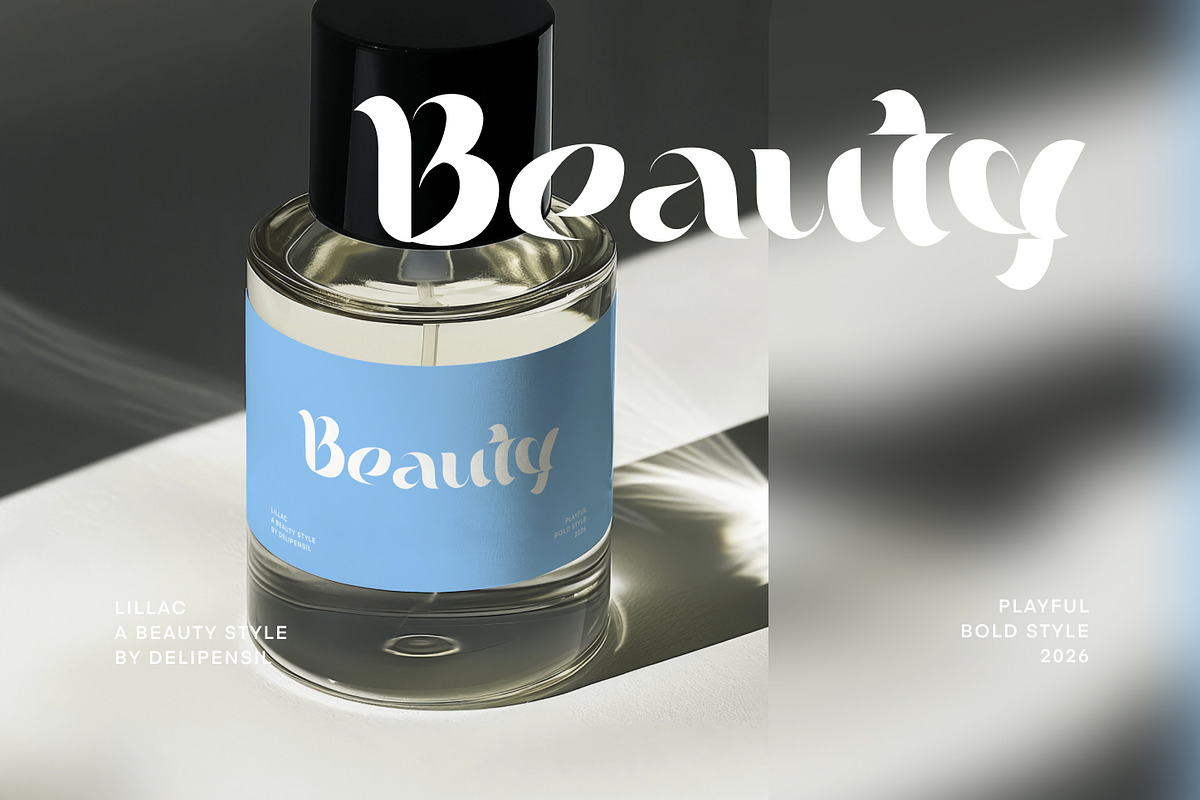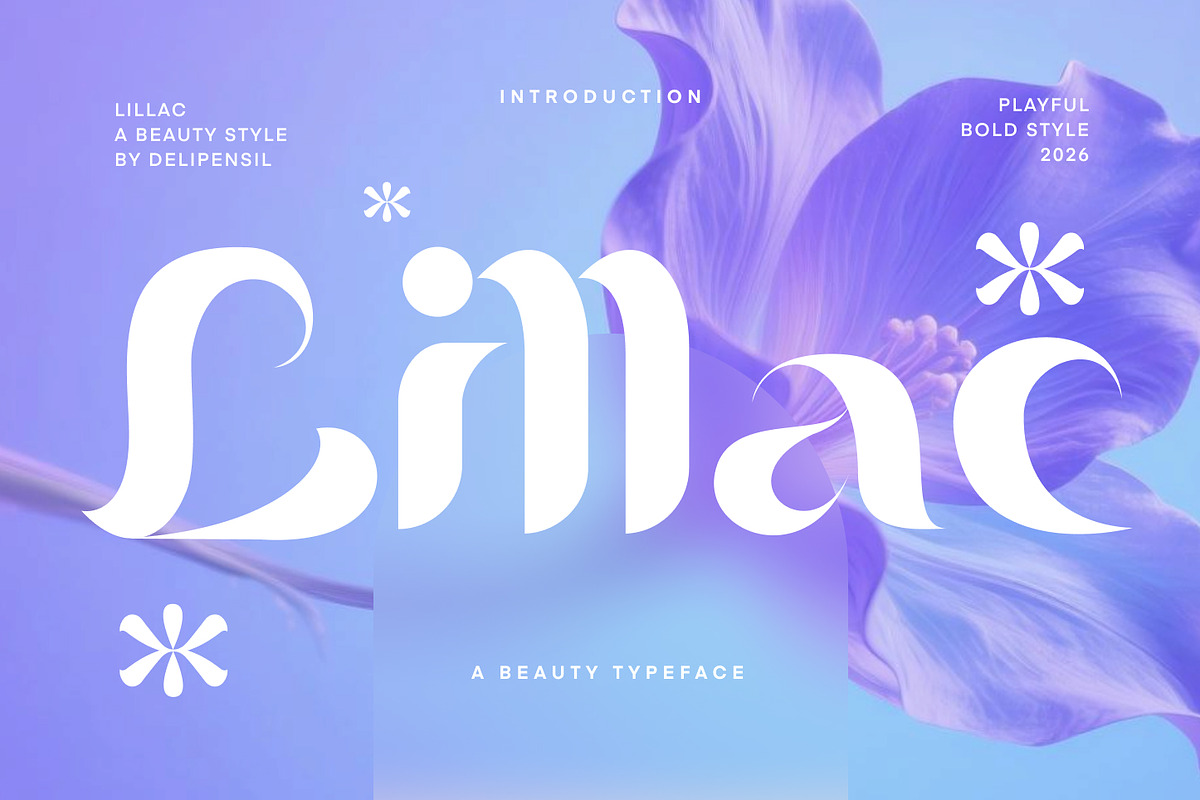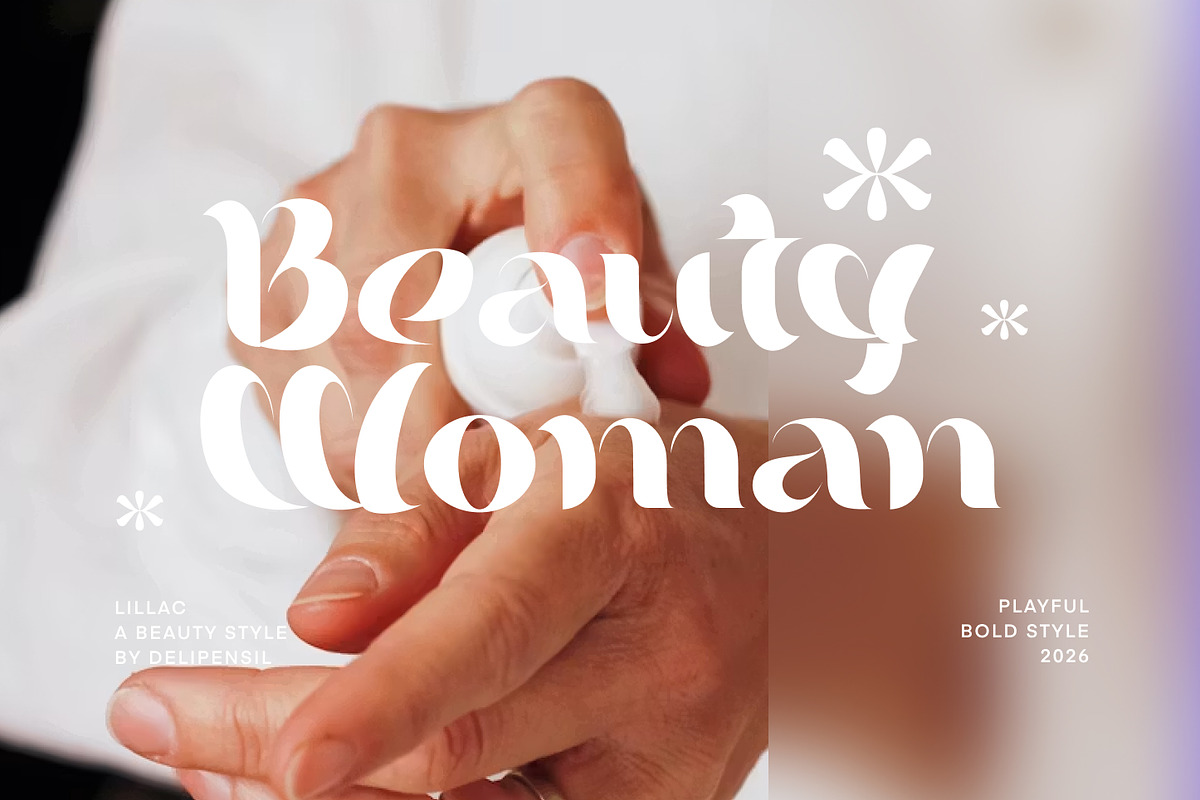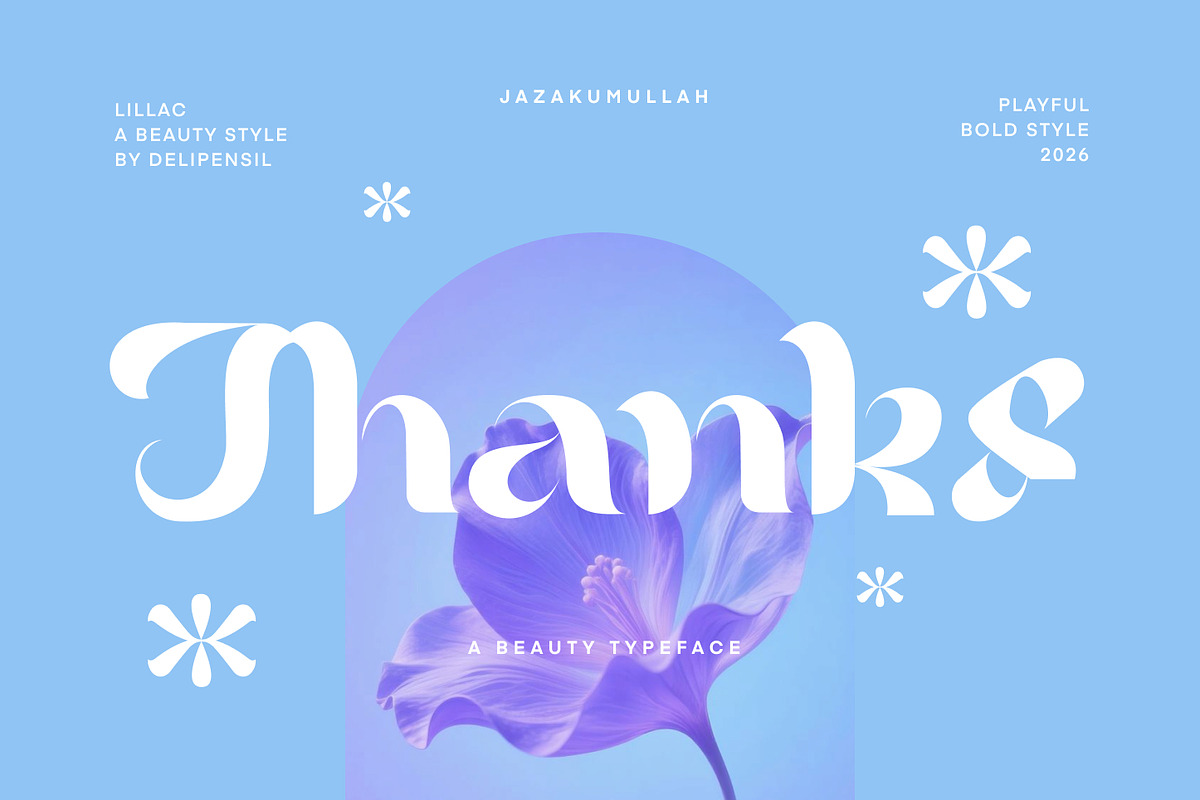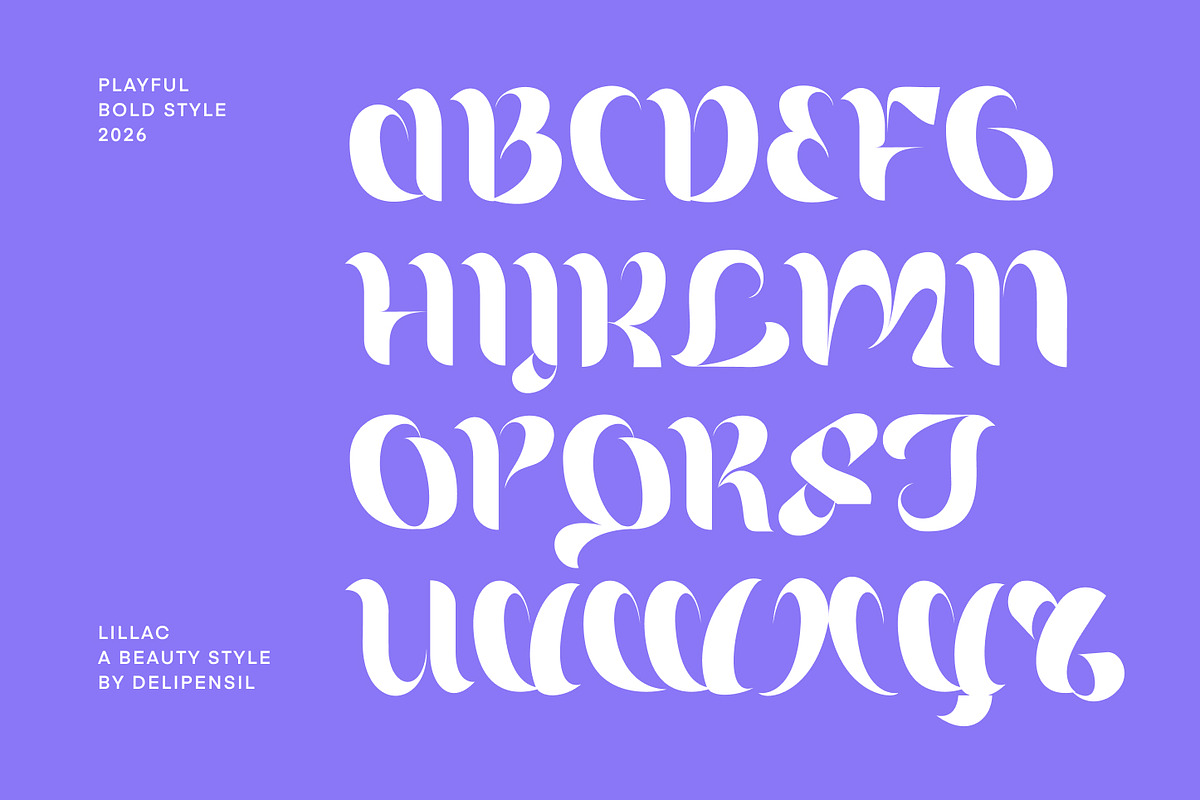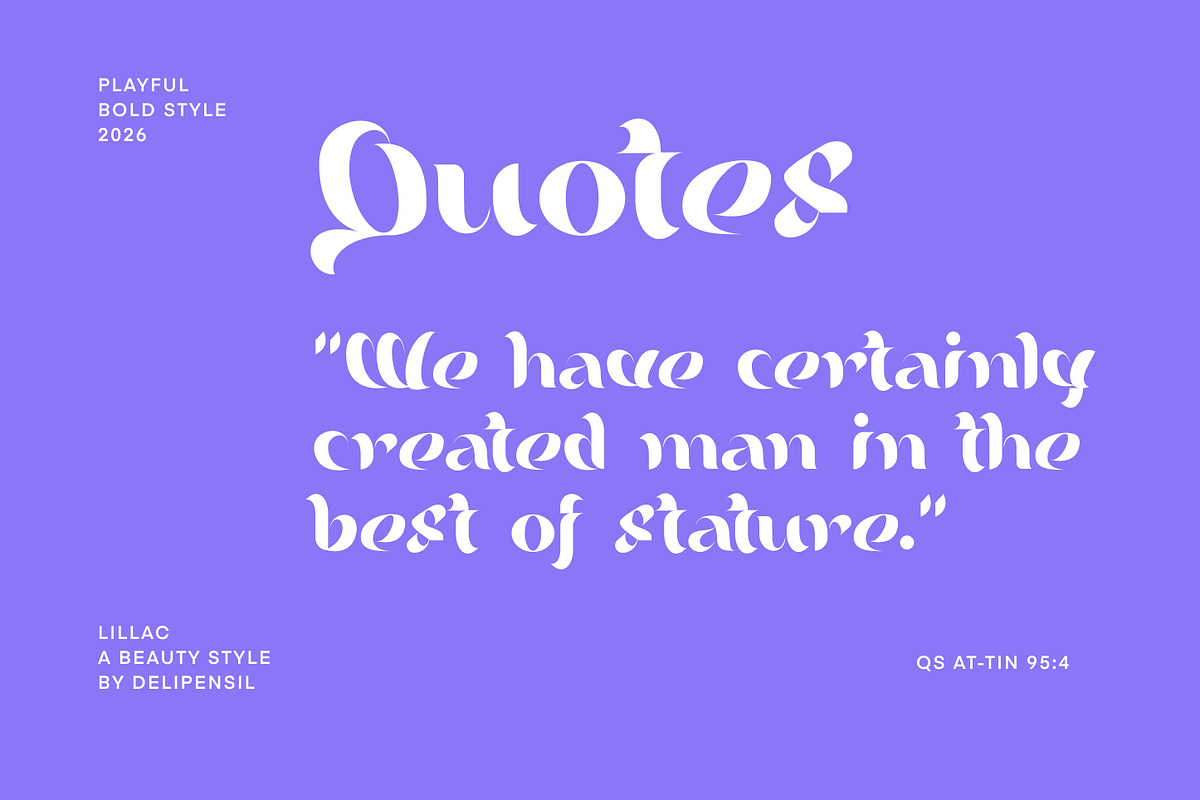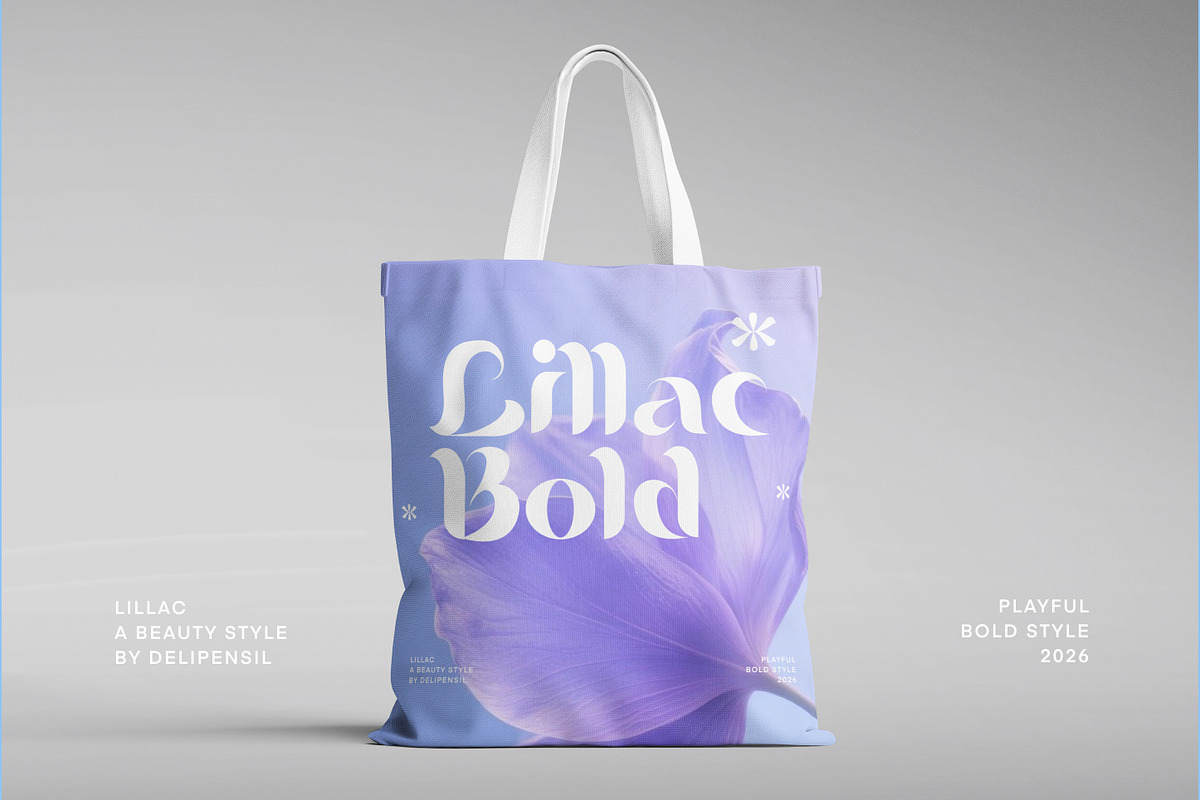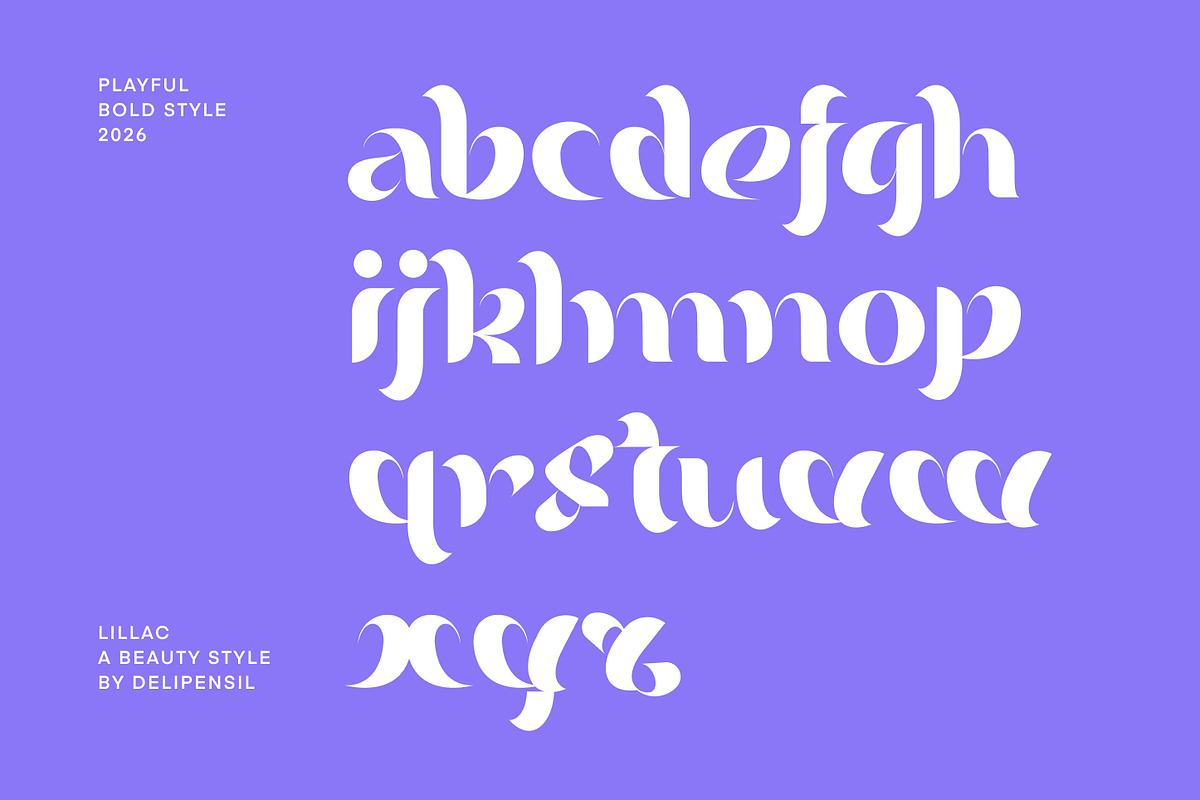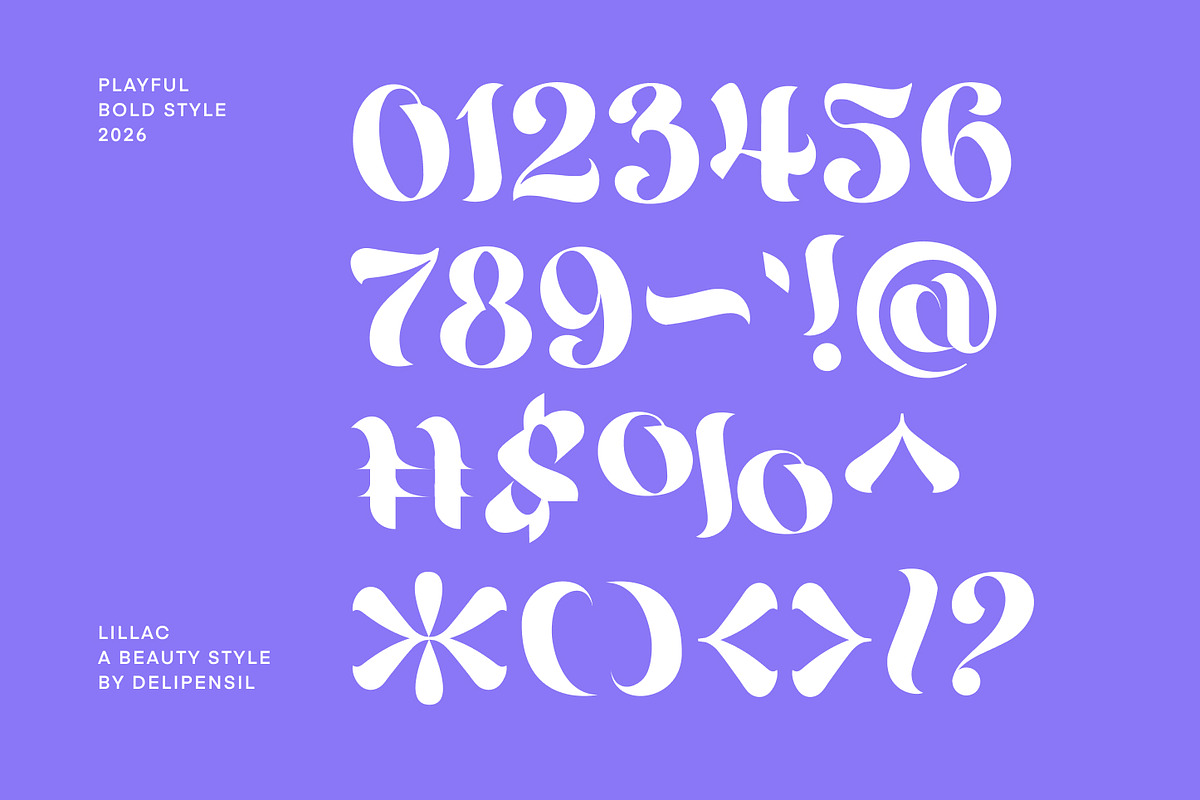
Lillac - A Elegant Beauty Typeface
Bismillah, Introduction Lillac – A Beauty Typeface
Lillac is an elegant and playful beauty typeface designed to bring a soft, feminine, and stylish character to your creative projects. With its bold curves, expressive shapes, and distinctive details, Lillac is perfect for designs that need a beautiful and memorable typographic touch.
Its unique display style works especially well for beauty brands, fashion projects, cosmetics, packaging, social media graphics, invitations, editorial designs, logos, and other eye-catching branding projects.
Lillac is made for designers who want their typography to feel bold, beautiful, playful, and effortlessly stylish.